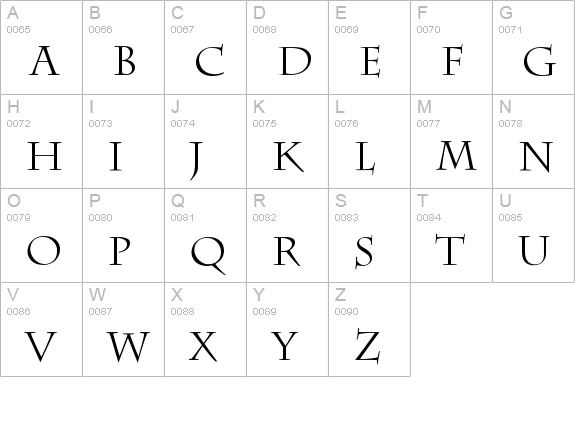
Chaz Normal is the standard, neutral variant in the Chaz typeface family \xE2\x80\x94 well suited to general body text, paragraphs, and standard typographic work.
Chaz Normal font is a versatile and modern typeface that is perfect for a wide range of design projects. Its clean lines and balanced proportions make it a great choice for both headers and body text. The sleek and professional look of Chaz Normal font will add a touch of sophistication to any design. This font is freely available to download at FontsMarket.com, making it accessible to designers and creatives looking for a high-quality typeface without breaking the bank. Whether you're working on a website, branding materials, or print design, Chaz Normal font is sure to elevate your project with its timeless appeal and readability. Download Chaz Normal font today and take your designs to the next level!